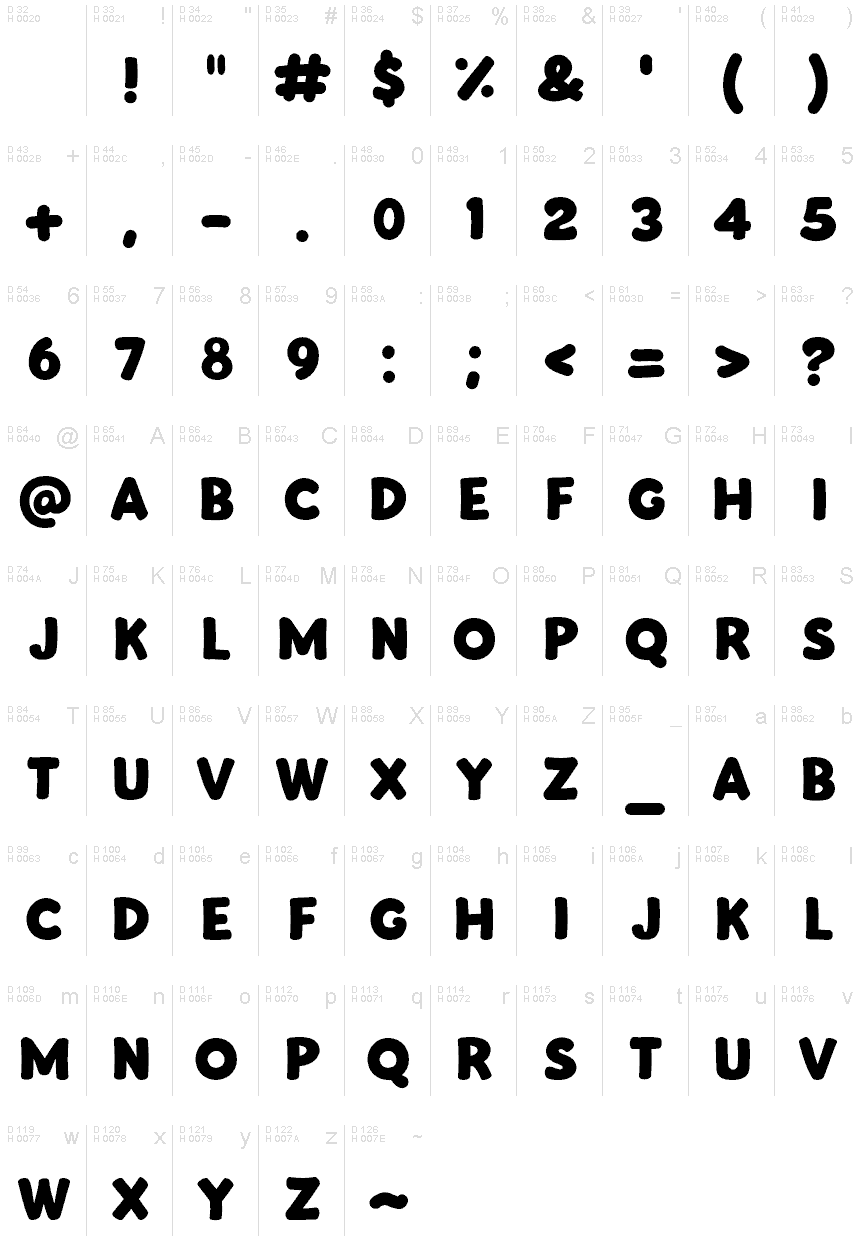
Bake Soda
Bake Soda font by MJType is a bold cartoon display font with a whimsical design. Its casual, vintage-inspired look features rounded forms and flowing curves, creating a friendly aesthetic that invites engagement.
This free typeface is perfect for kids’ projects, book covers, branding and packaging materials, advertisements, prints and posters, typography art posters; basically any creative project that you might have in mind.